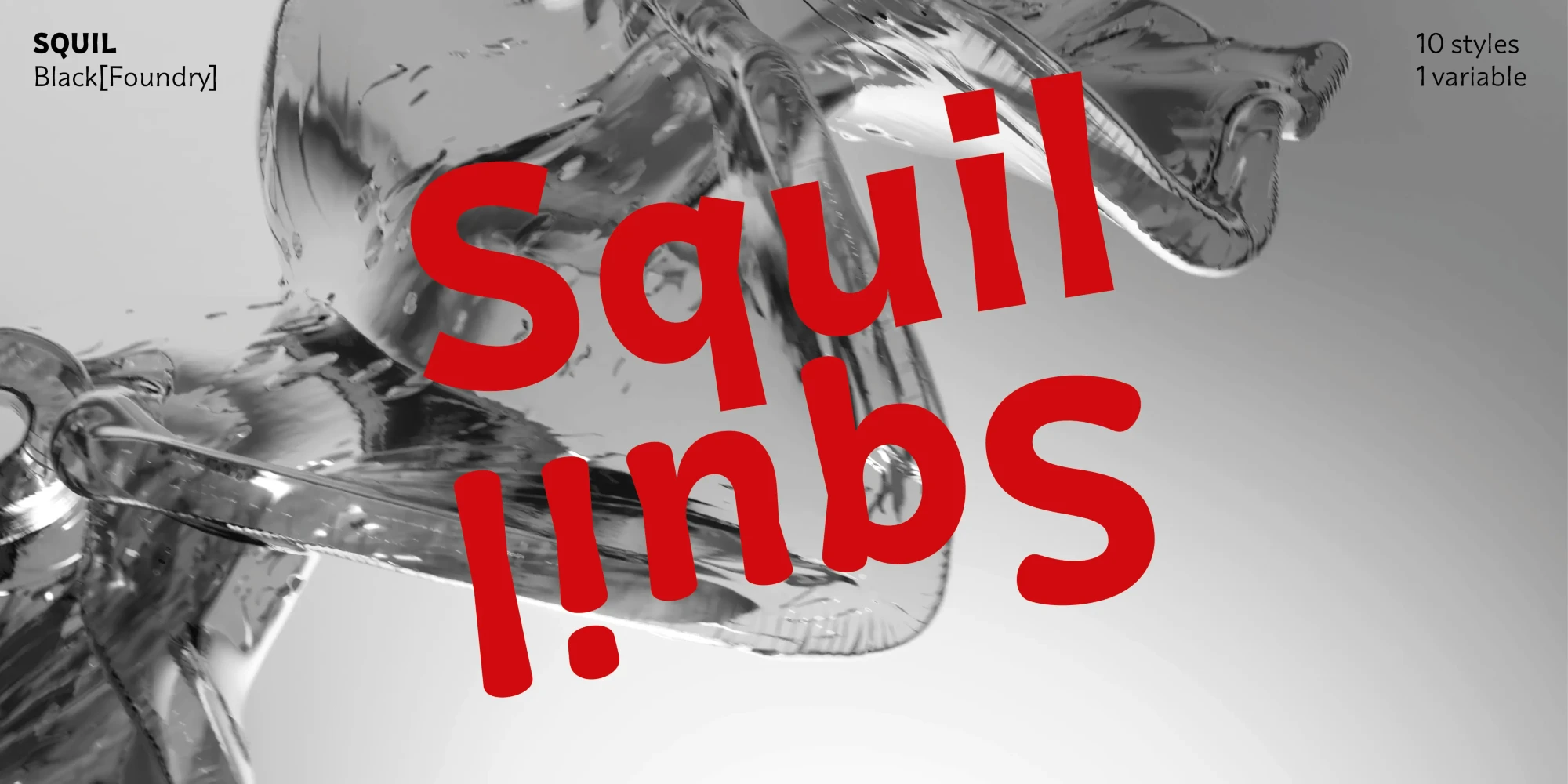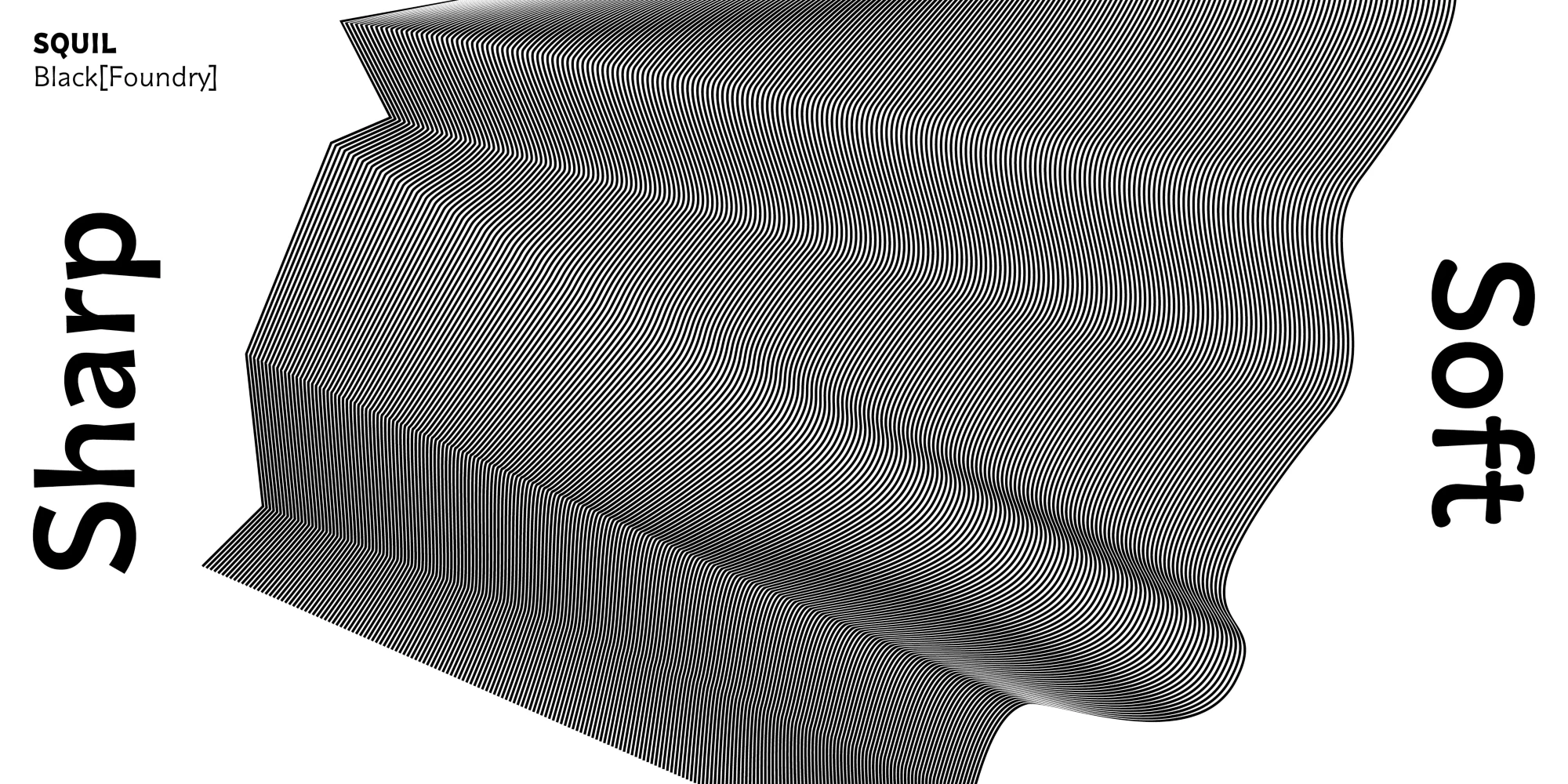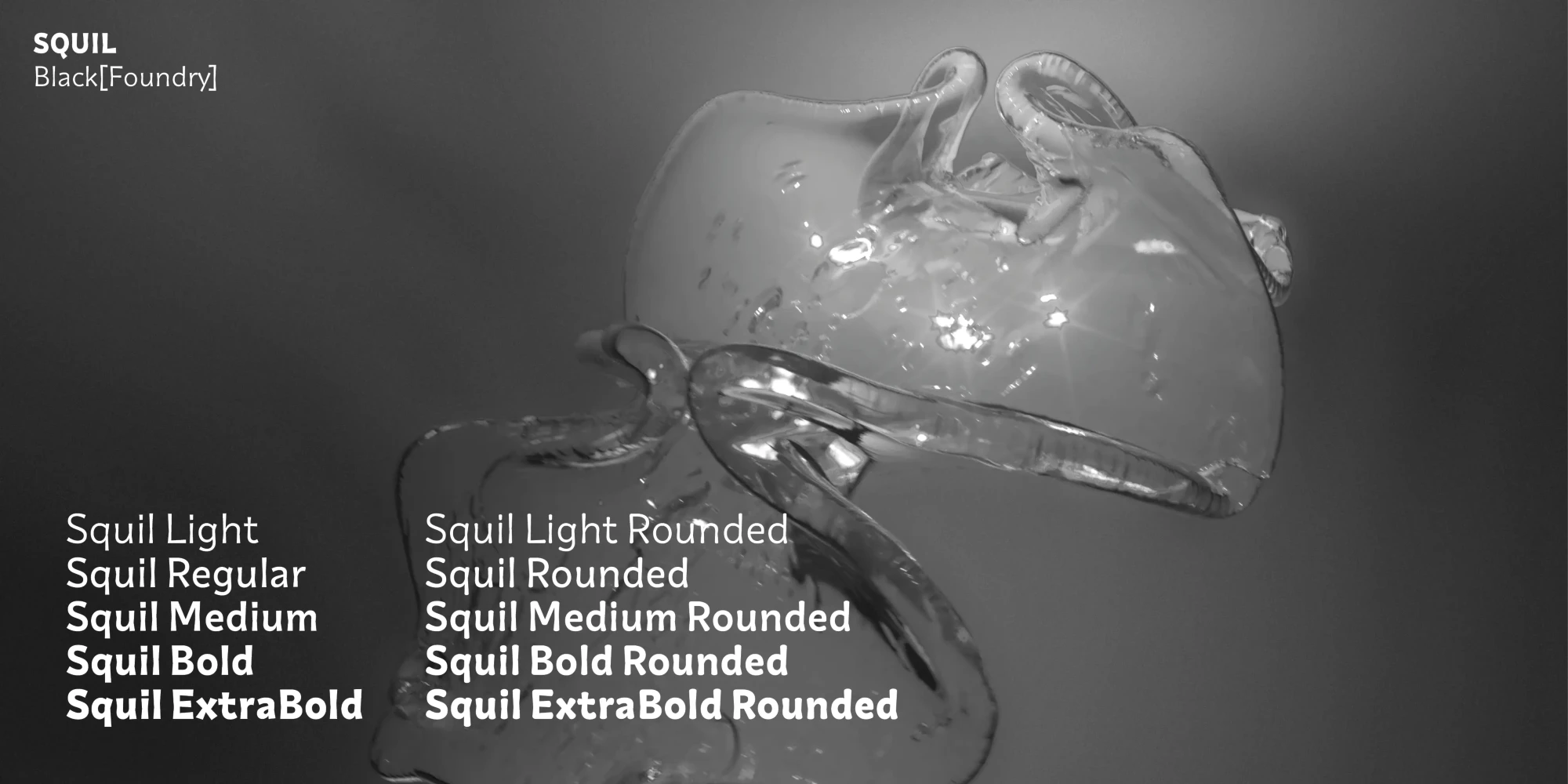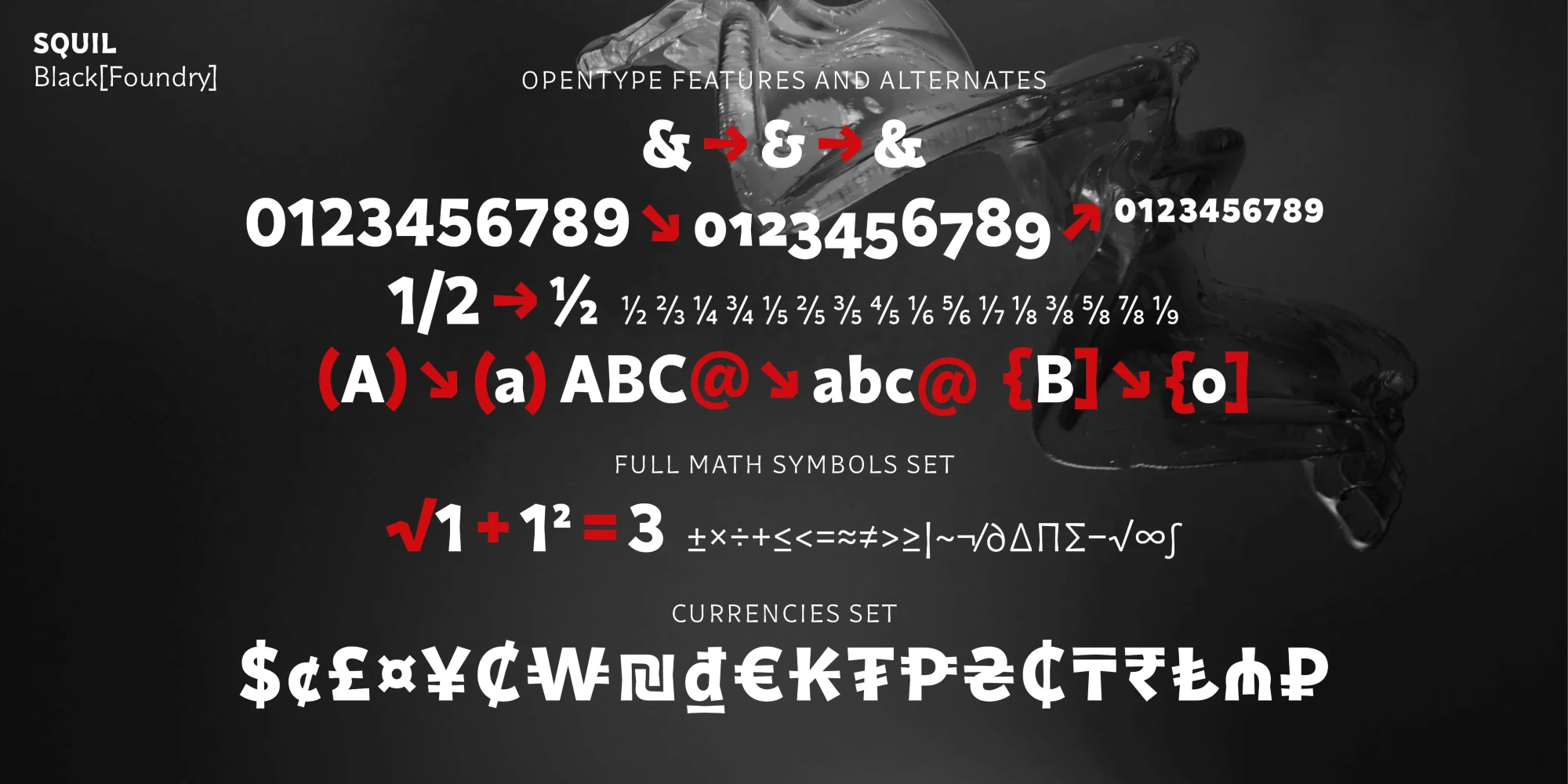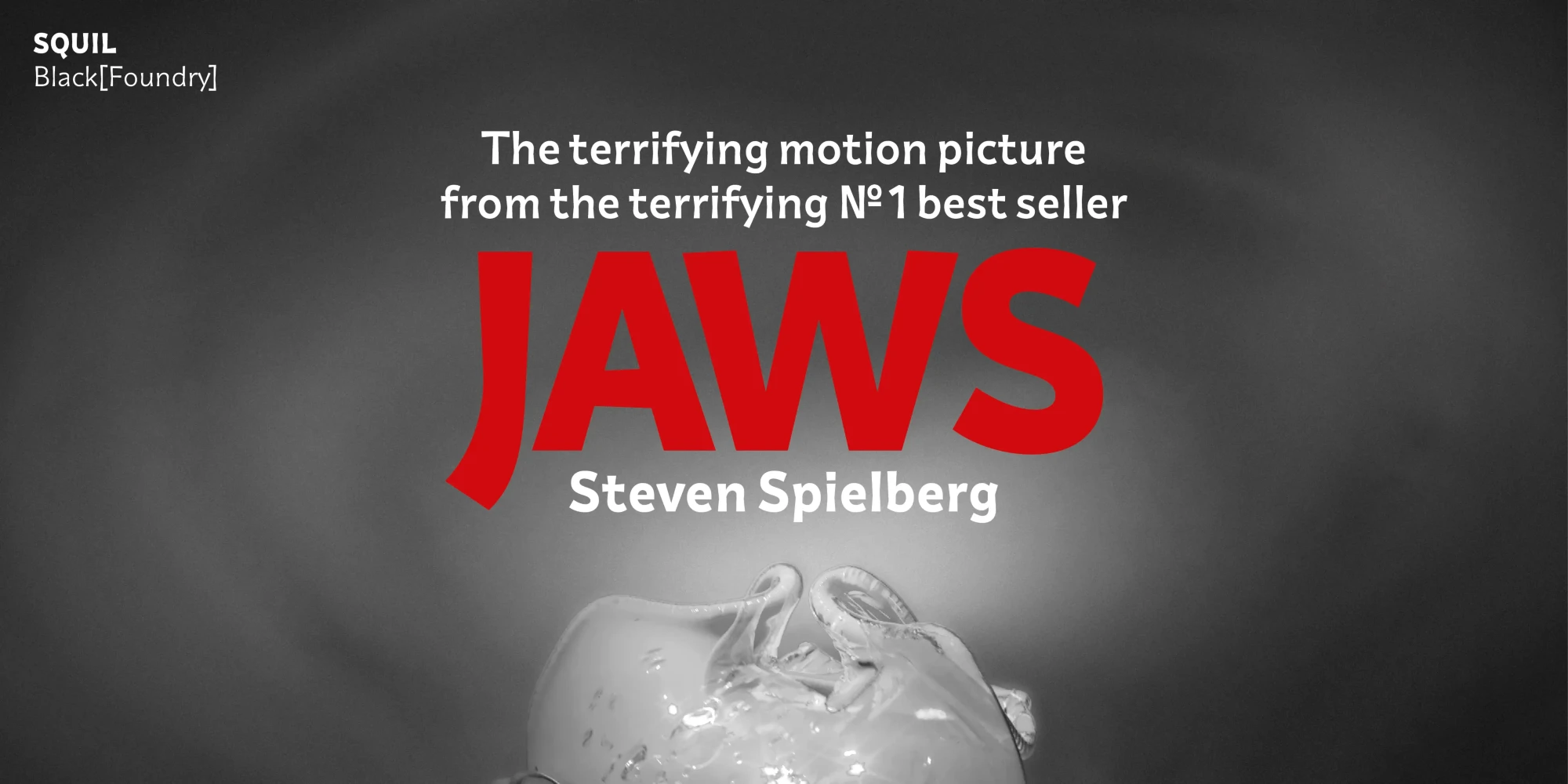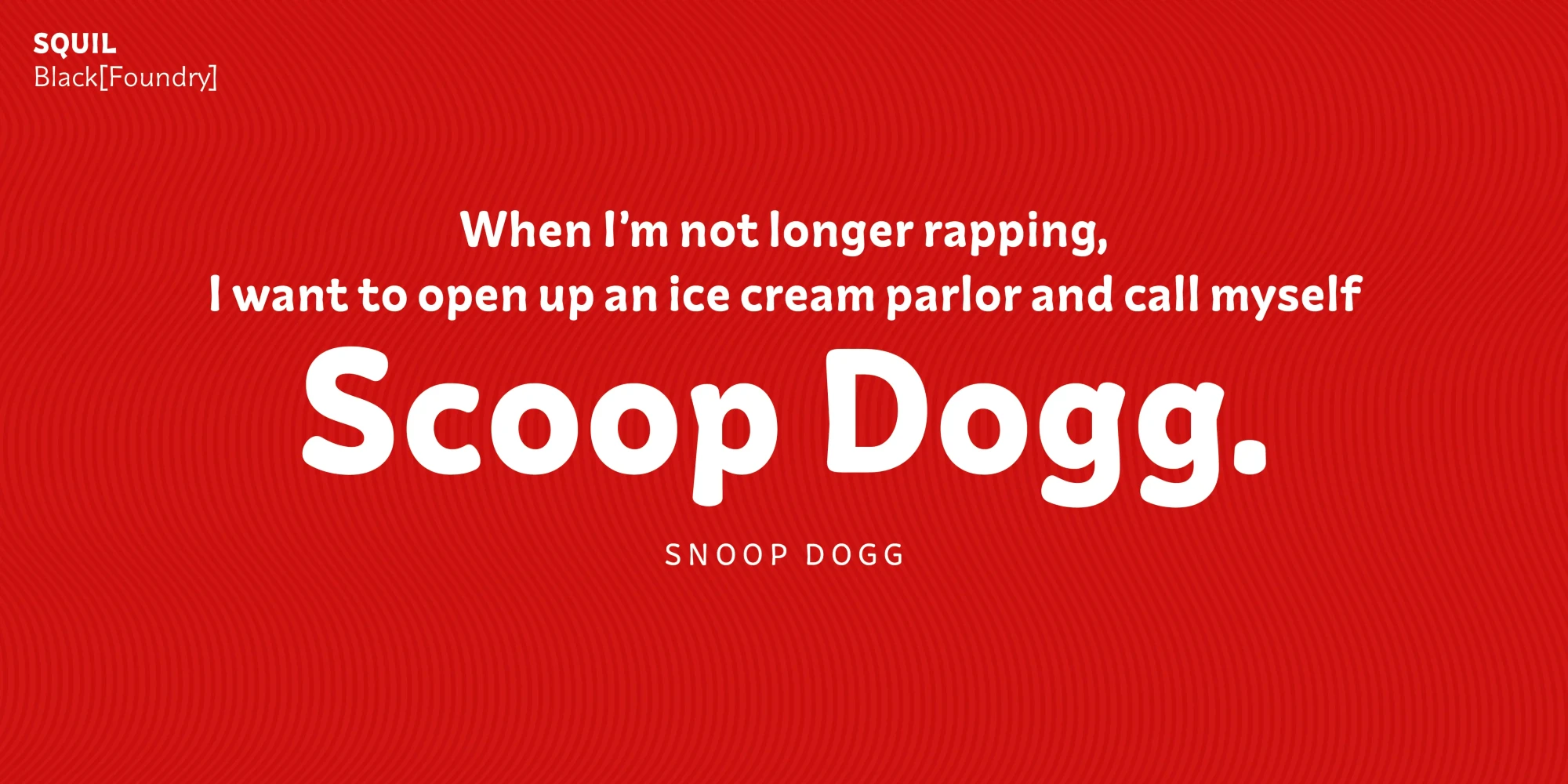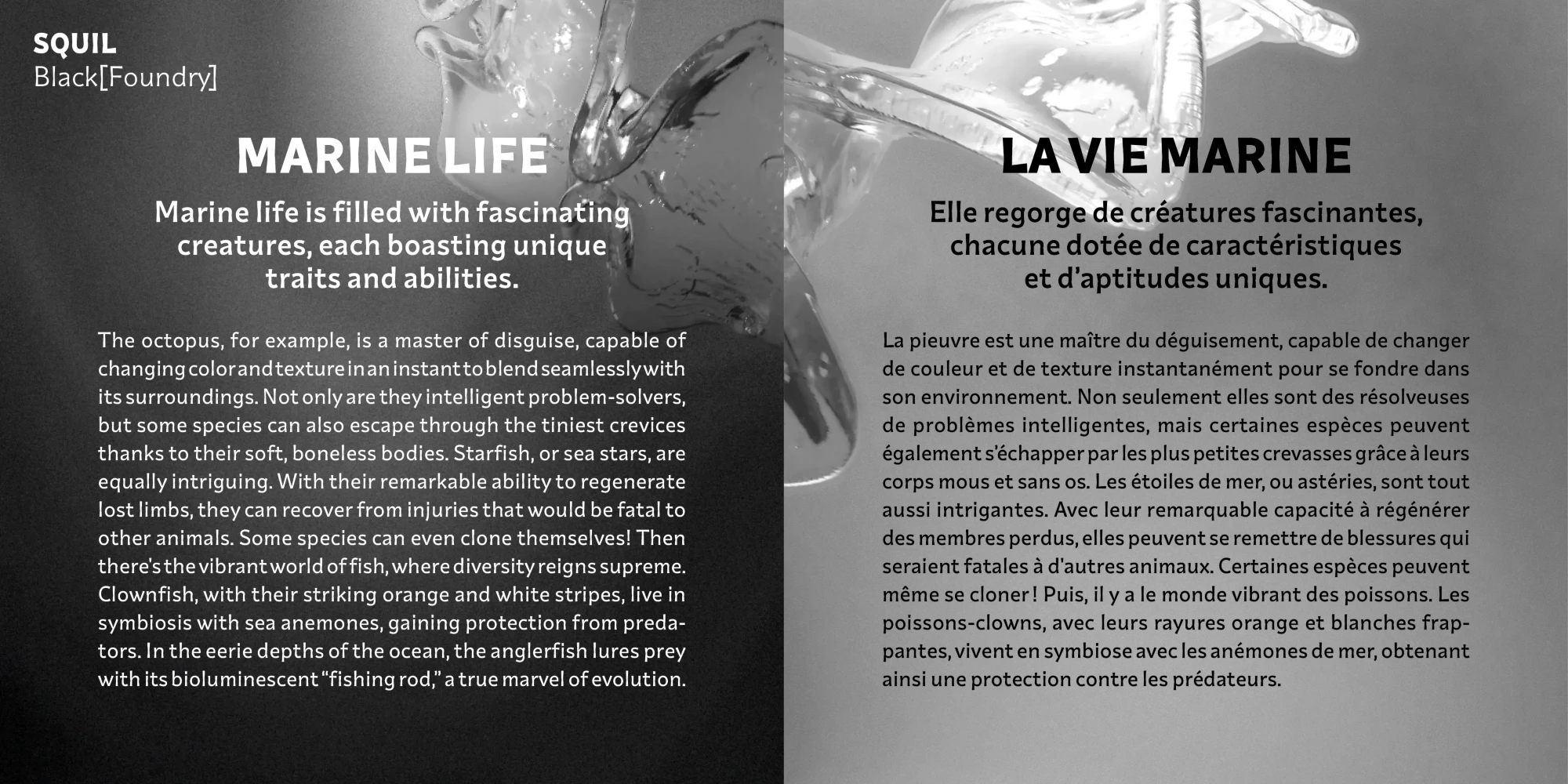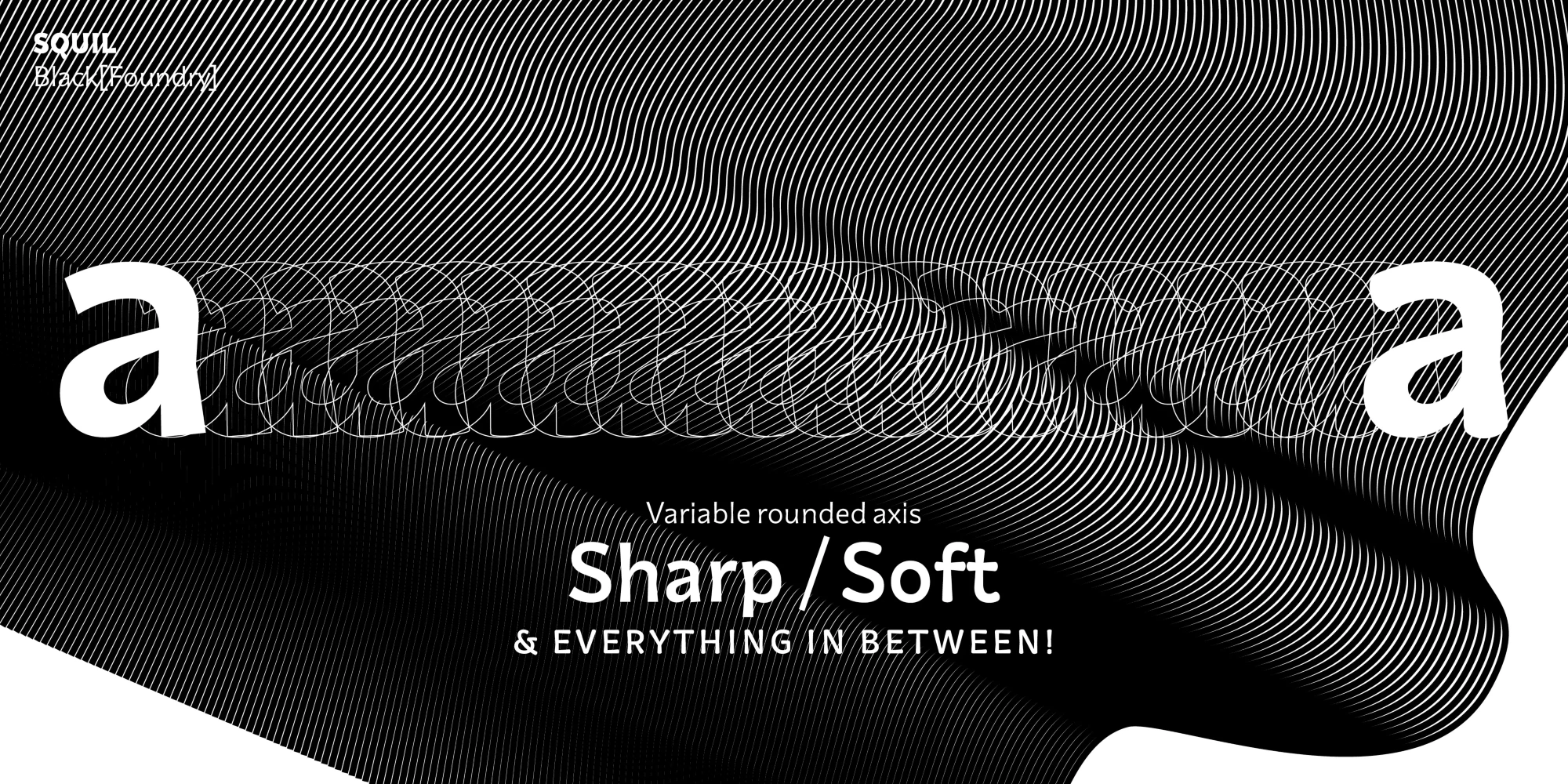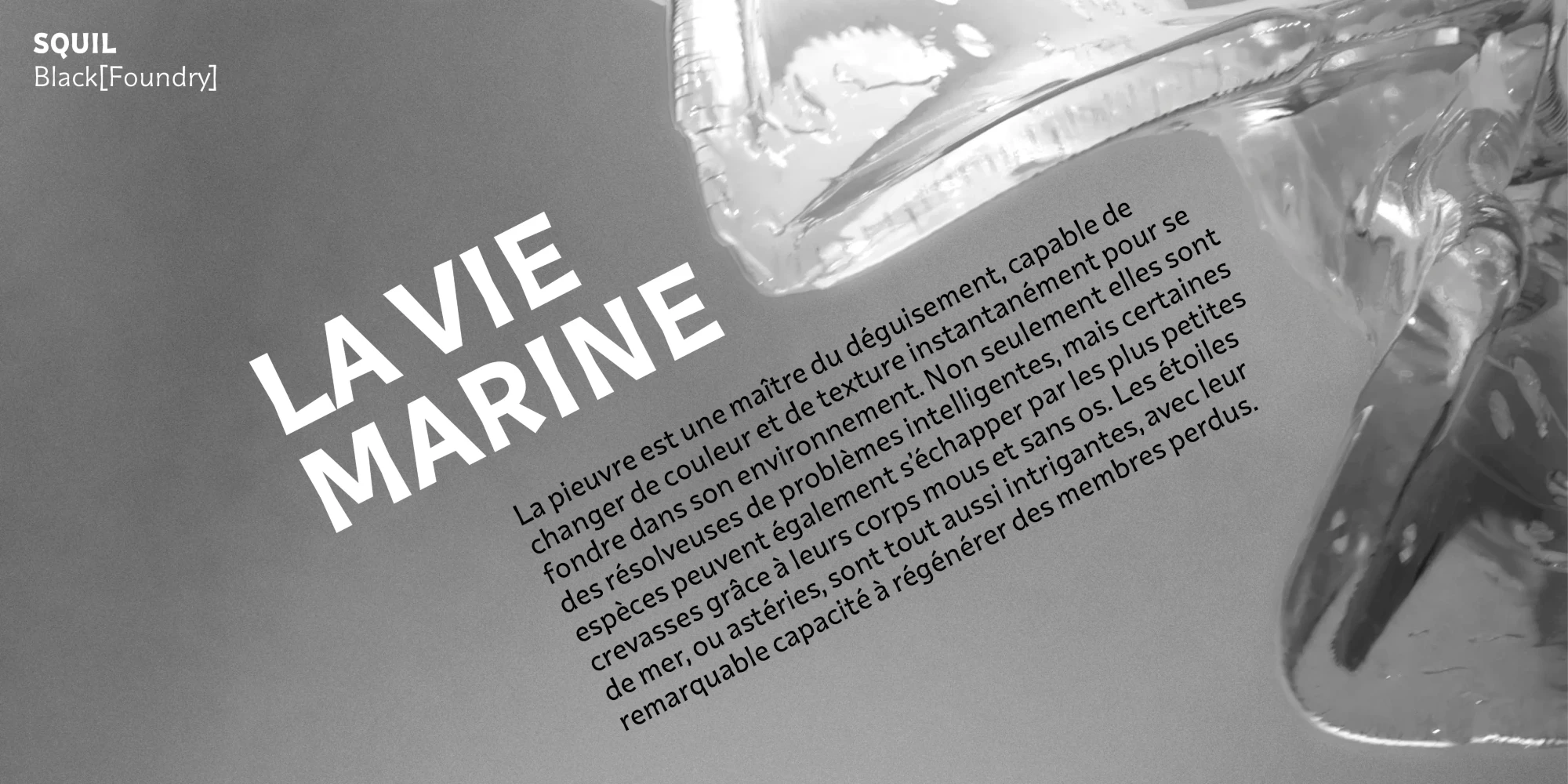
Squil Fonts
Squil is a warm and joyful sans serif shaped by an imaginary handwriting tool, giving it humanist qualities with a gentle flair. Pinched stems, a slightly angled axis, and soft curves add further uniqueness to the design. Available in crisp and round styles across weights from Light to ExtraBold, or as a variable font, its terminals can be adjusted from straight to rounded for increased typographic control. Dynamic in headlines and clear in body text, Squil offers versatility for engaging design applications.
Stylistic Alternates
Stylistic Set 1
Stylistic Set 2
Stylistic Set 3
Stylistic Set 4
Fractions
Oldstyle Figures
Tabular Figures
Ordinals
Scientific Inferiors
Superscript
Subscript
Numerators
Denominators
Case-Sensitive Forms
Features
OpenType Features
- Fractions
- Lining Numerals
- Old Style Numerals
- Ordinal Numerals
- Proportional Numerals
- Stylistic Alternates
- Stylistic Sets
- Subscript
- Superscript
- Tabular Numerals